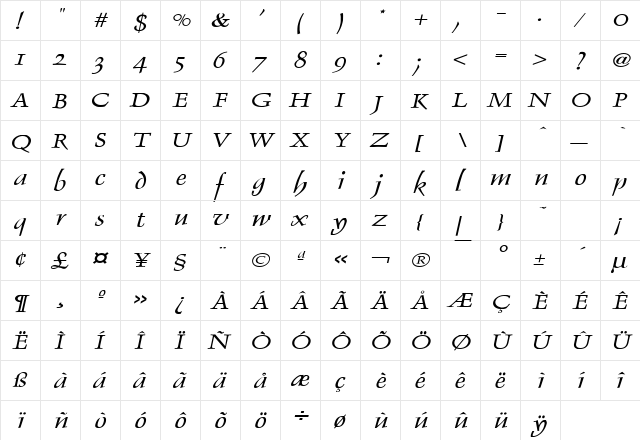
Dolphin Wide Italic
Design Context for Dolphin Wide Typeface
Dolphin Wide takes a measured approach to typography — its balanced proportions and neutral character make it a reliable workhorse for both digital and print work. Its italic angle brings a sense of urgency and motion to the letterforms.
Pro Tip: Use Dolphin Wide for emphasis, pull quotes, and subheadings where its slanted energy can add rhythm to the layout.